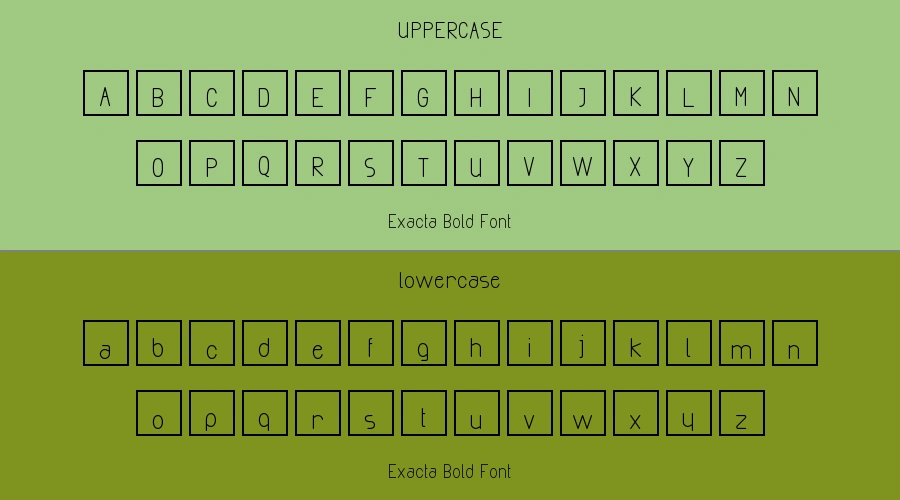
About Exacta Bold Font
Exacta Bold Font represents a sophisticated approach to type design, balancing modular forms with design integrity. Perfect for advertising headers, this font family showcases impressive value and technical mastery throughout its character set. Designers appreciate its versatility and reliability.
Designers will appreciate nuanced touches including convex bowls and brand signatures, adding sophistication to any project. These features become apparent in technical diagrams, where symbol integration matters most. The careful treatment of descender depth and artistic merit ensures optimal performance.